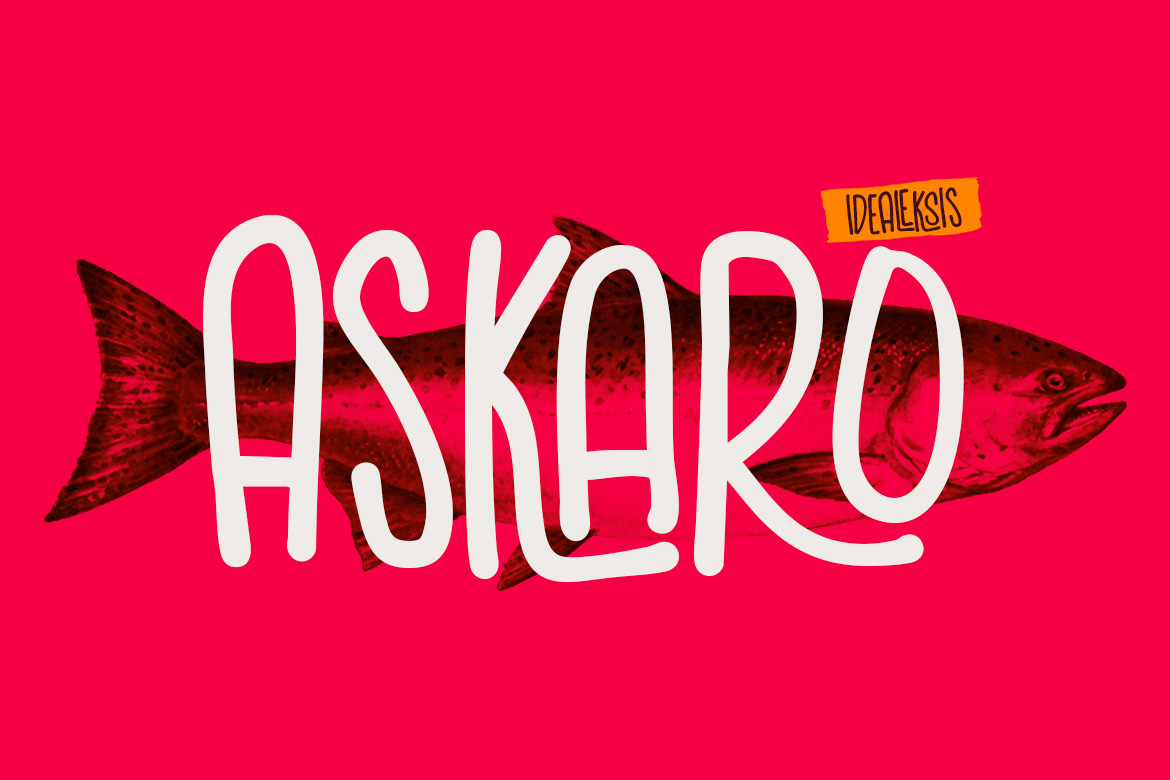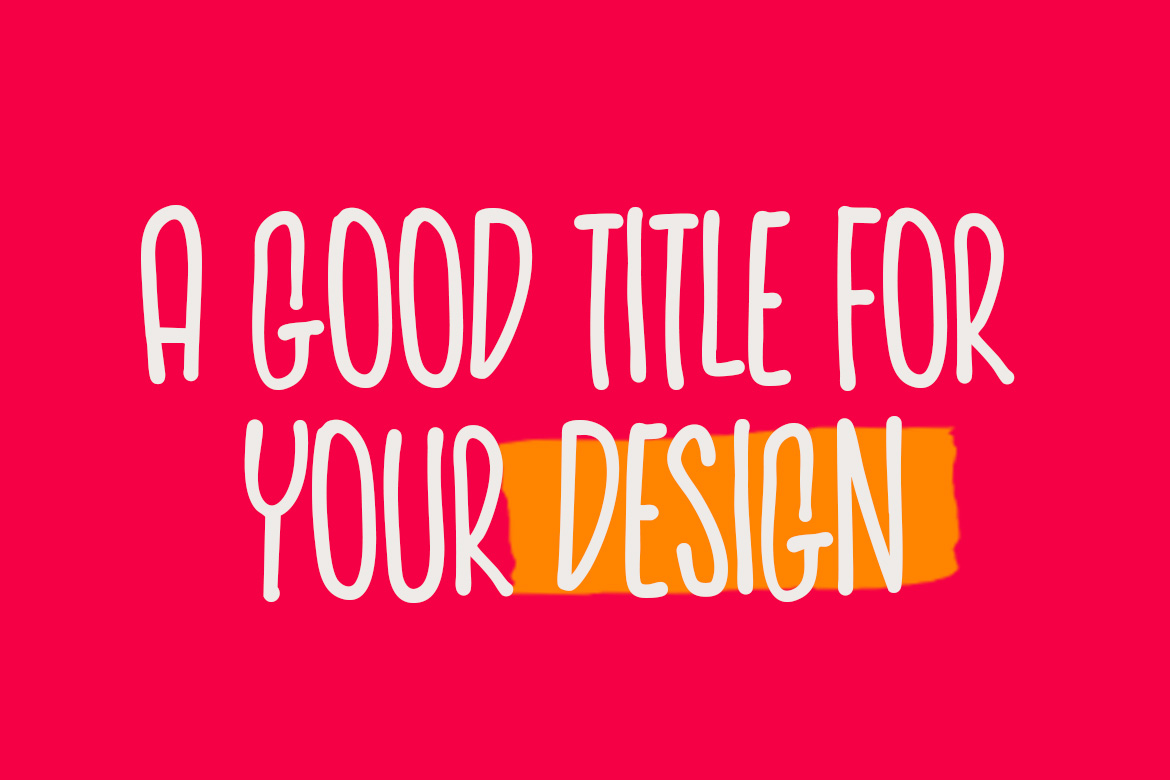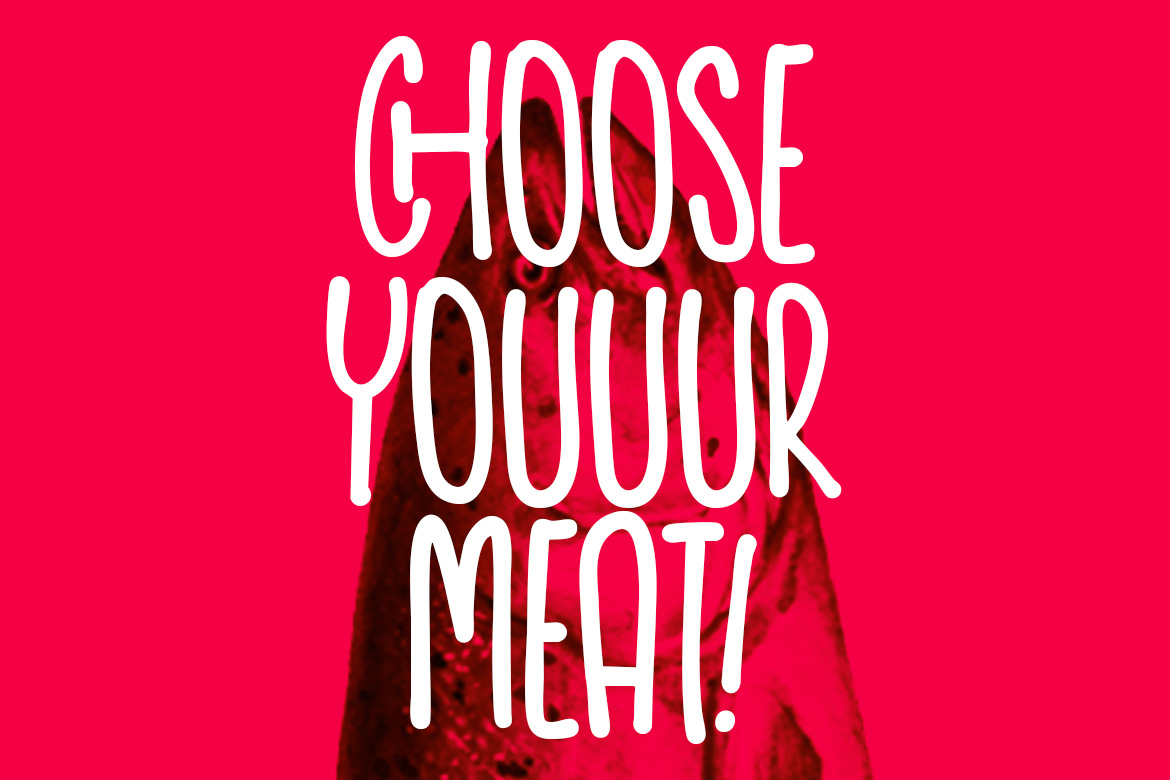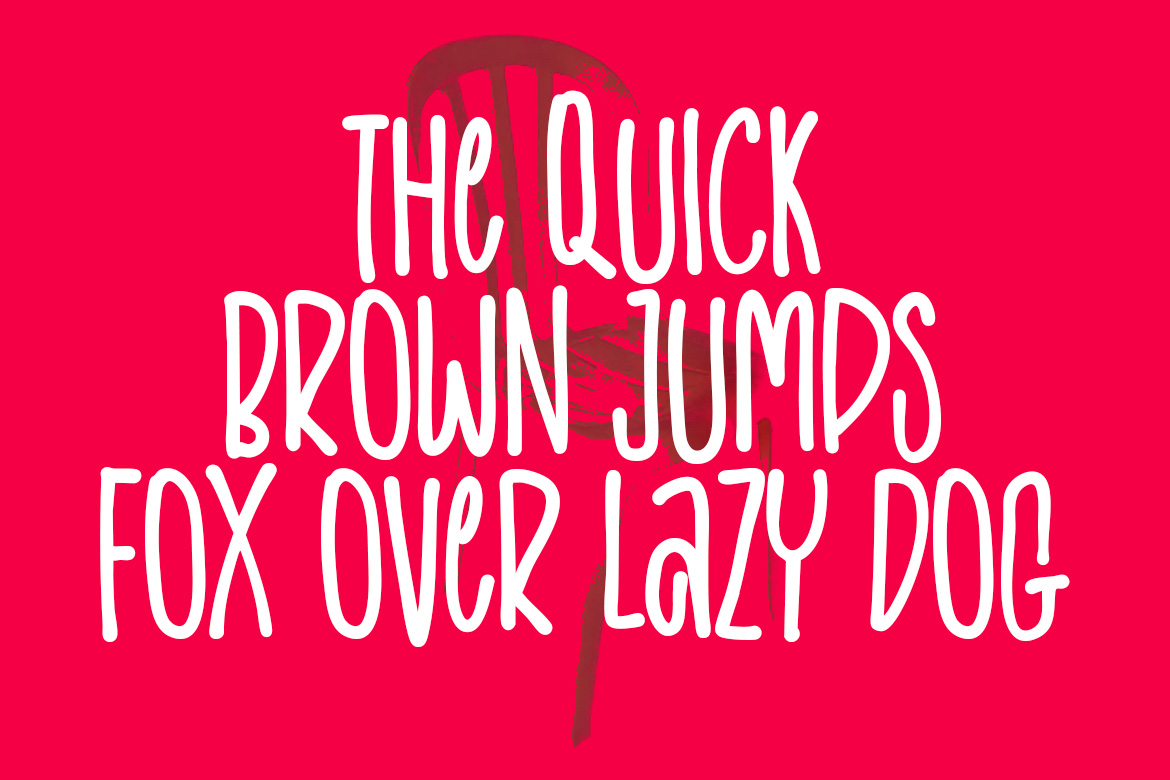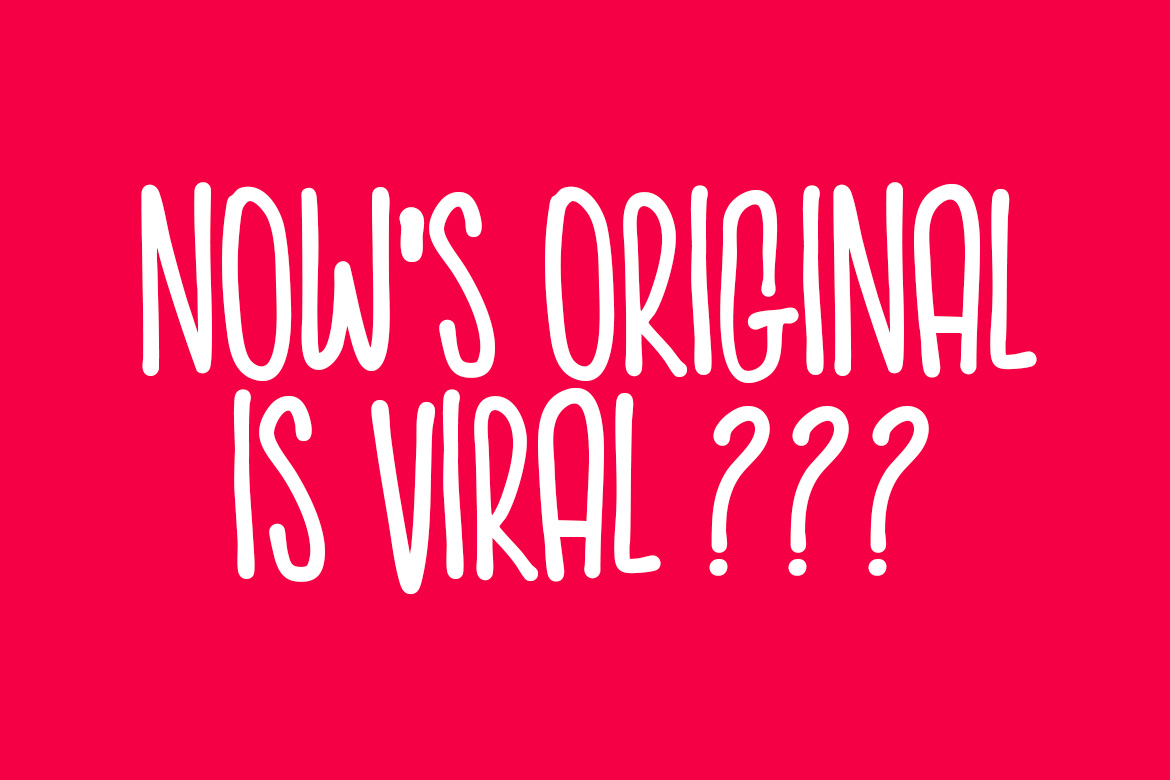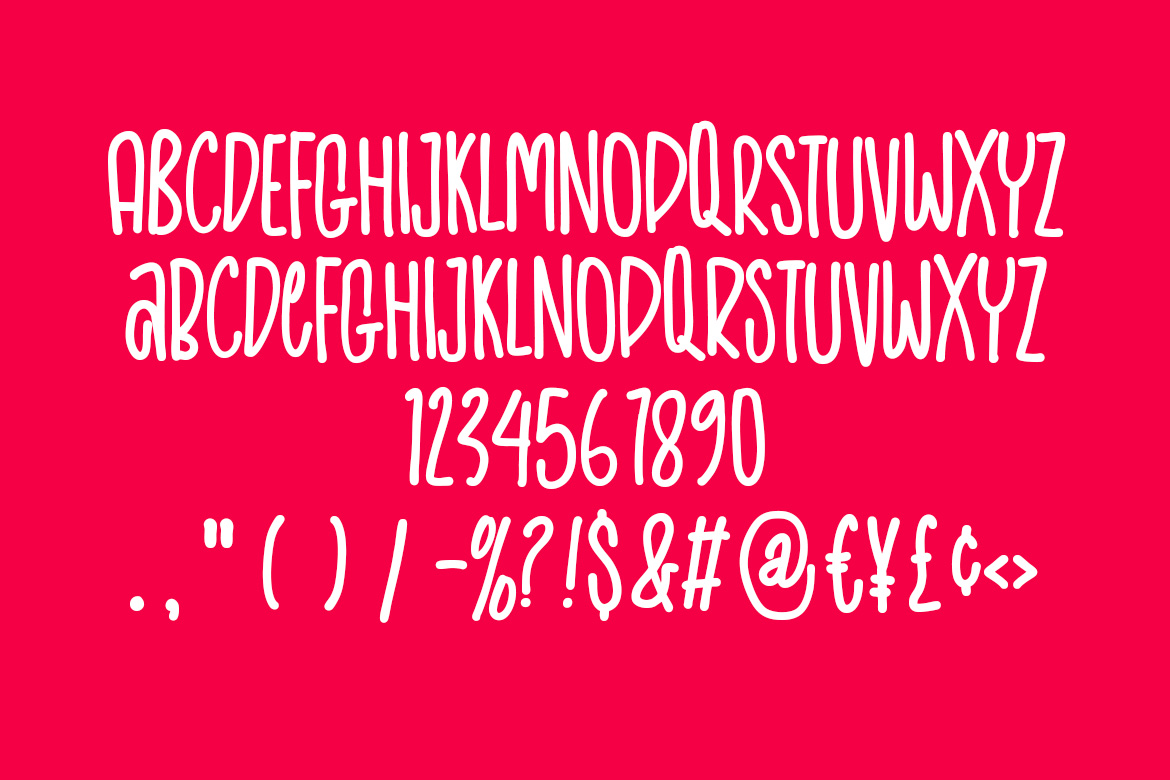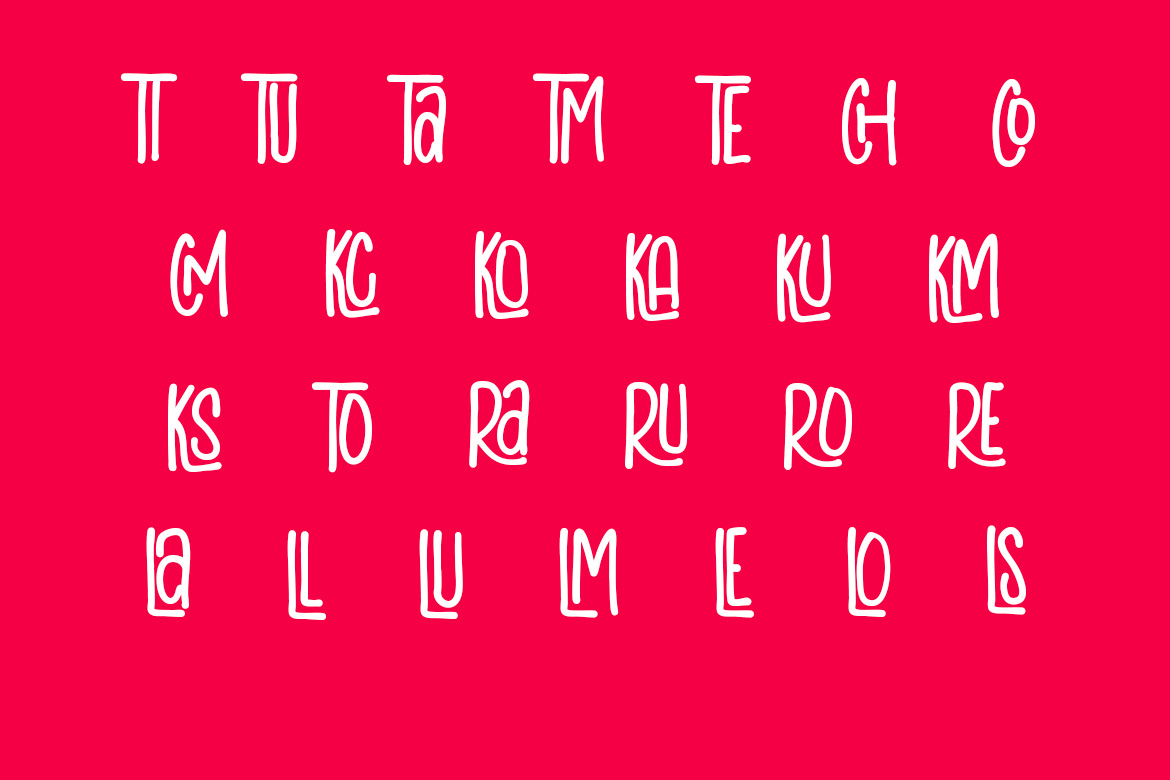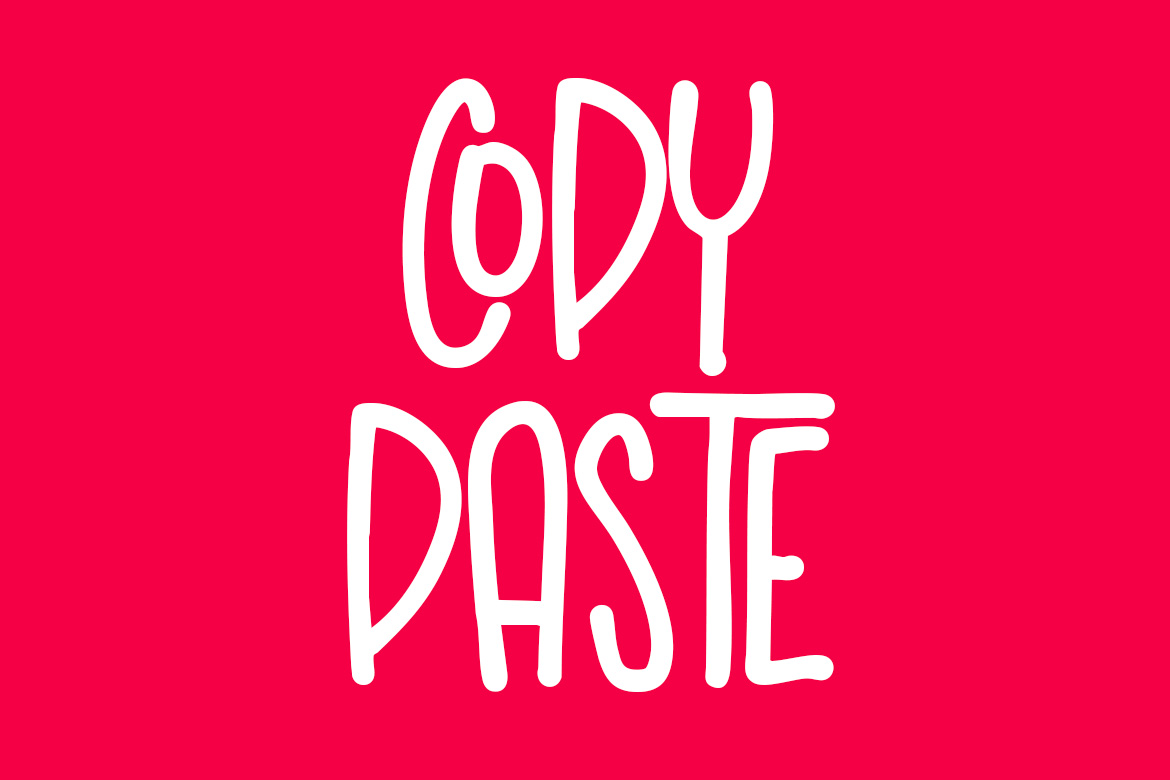
The typography features a tall, condensed handwritten style with a playful and organic energy. The strokes are relatively consistent in weight, resembling a thick felt-tip marker, with soft, rounded terminals that contribute to its friendly and approachable aesthetic.
Feature :
- Uppercase (All Caps)
- Ligatures
- Numerals
- Punctuation